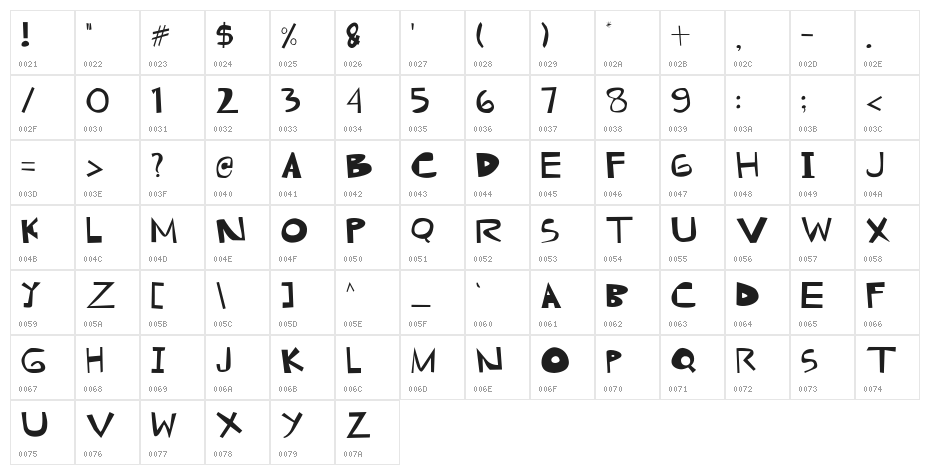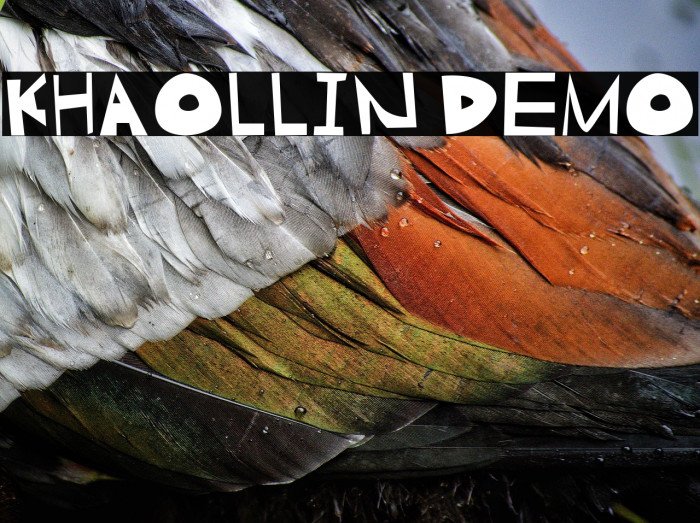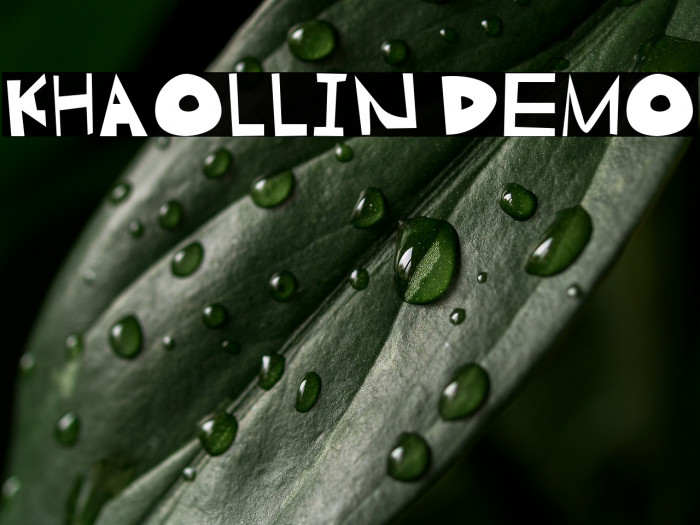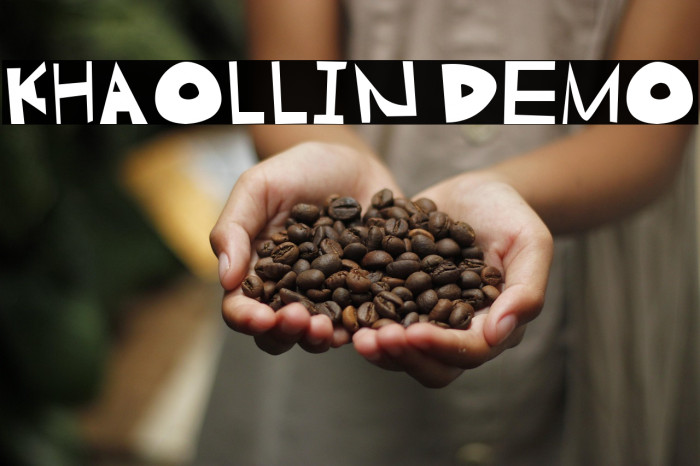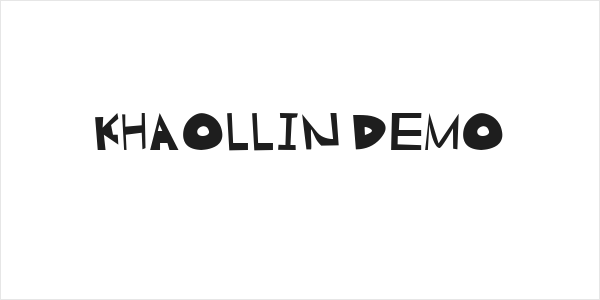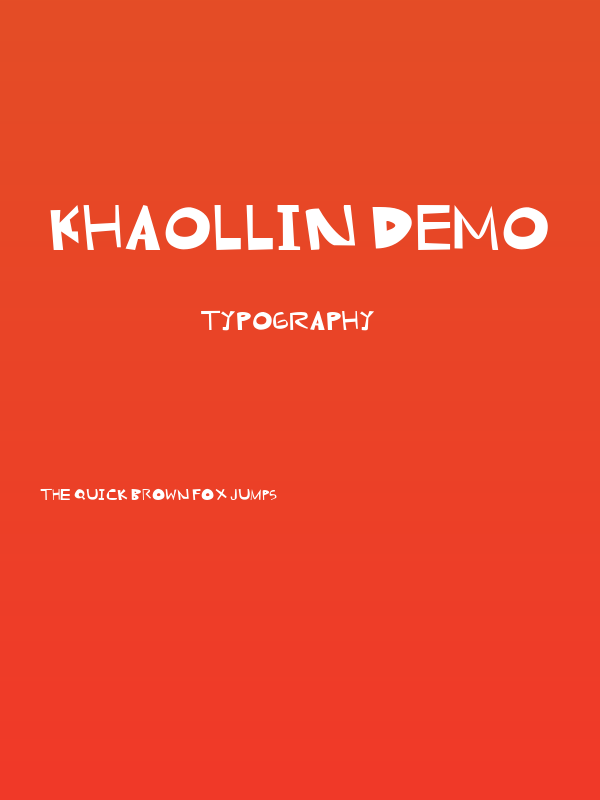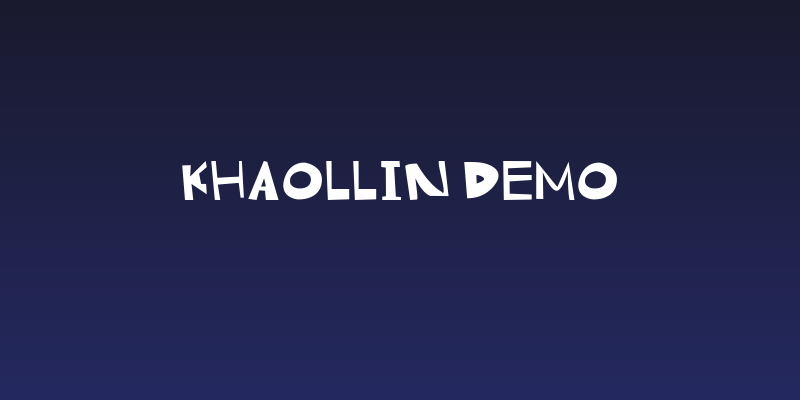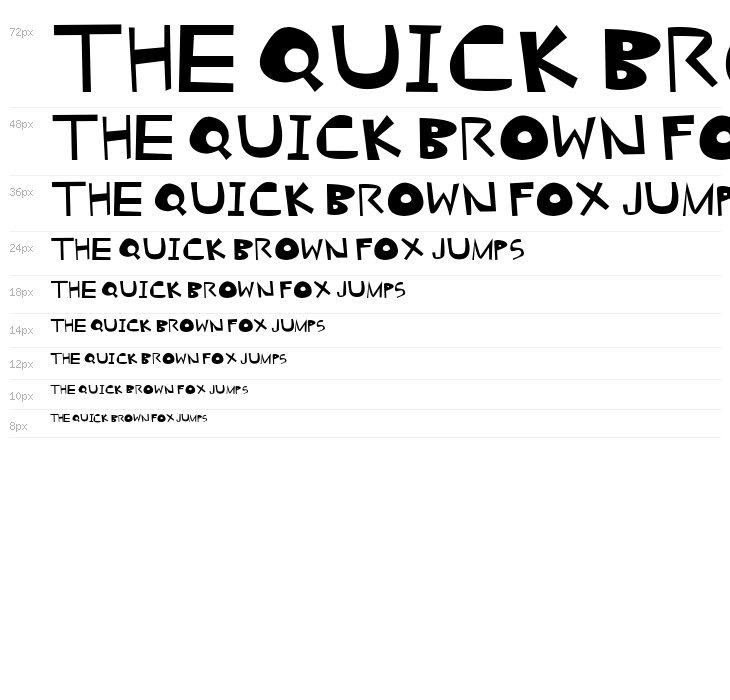
Khaollin Demo Font
Khaollin Demo Description
This font features a playful and quirky design, characterized by its irregular and dynamic letterforms. The uppercase and lowercase letters exhibit a hand-drawn quality, with varying stroke widths and slightly tilted orientations, adding to its whimsical appeal. The numbers and special characters maintain this lively style, making the font suitable for creative and informal applications. Its unique appearance is enhanced by the uneven baseline and varied character heights, giving it a distinctive and eye-catching look.
| Overall Style | Playful, Quirky, Hand-drawn |
| Use Case | Headlines, Posters, Branding |
| Proposed Projects | Ideal for children's books, comic strips, playful branding, and creative posters. |